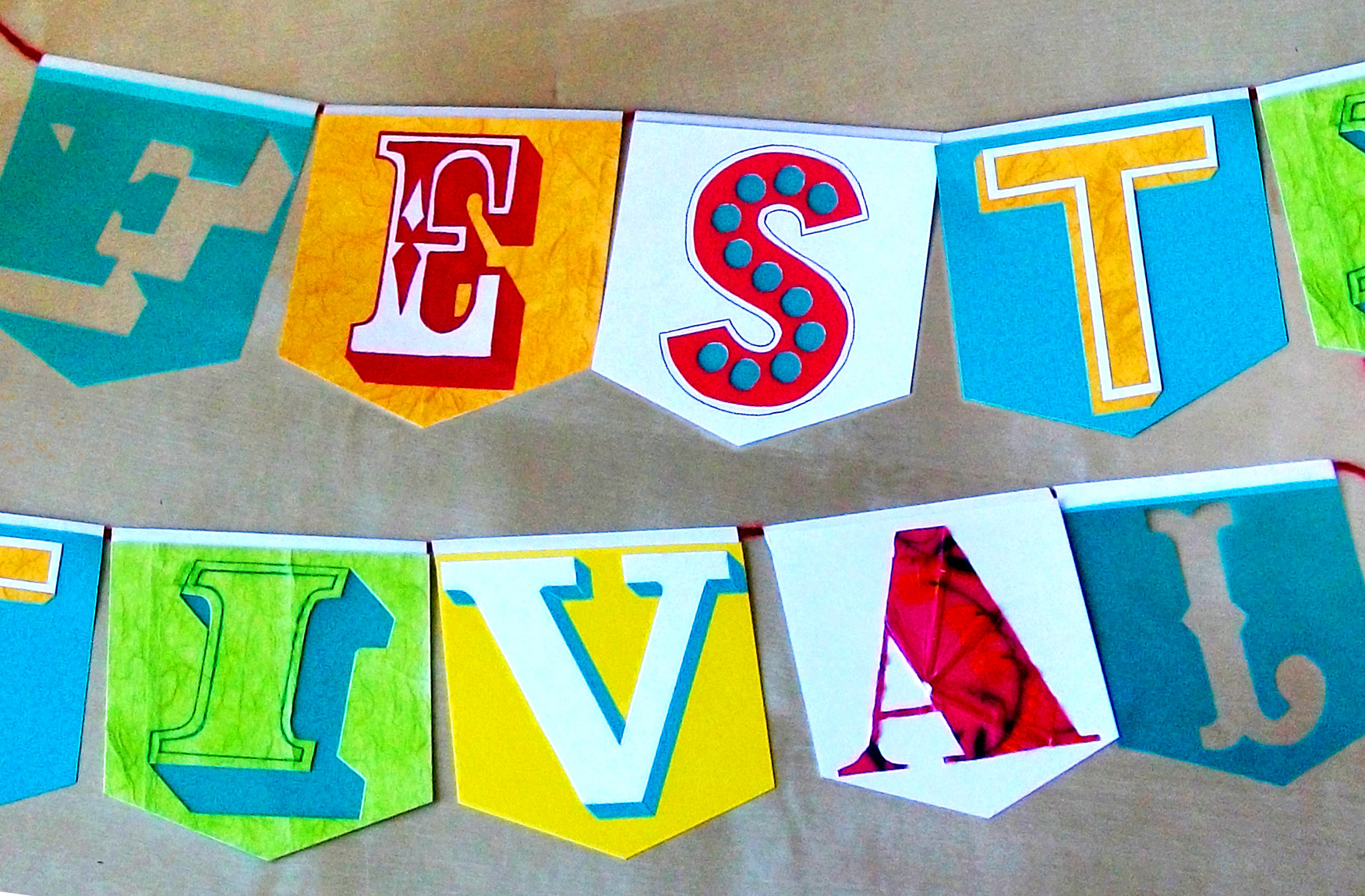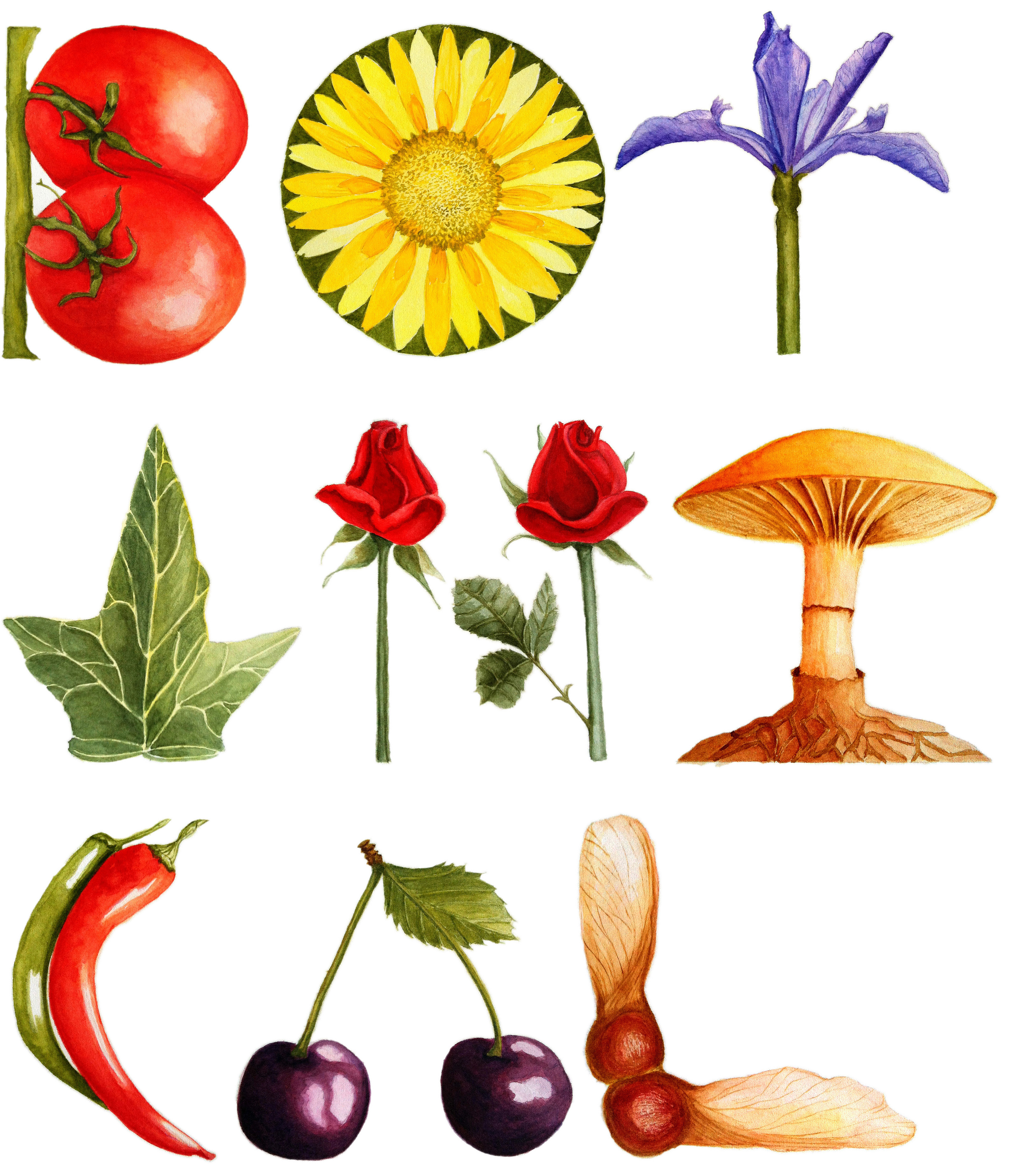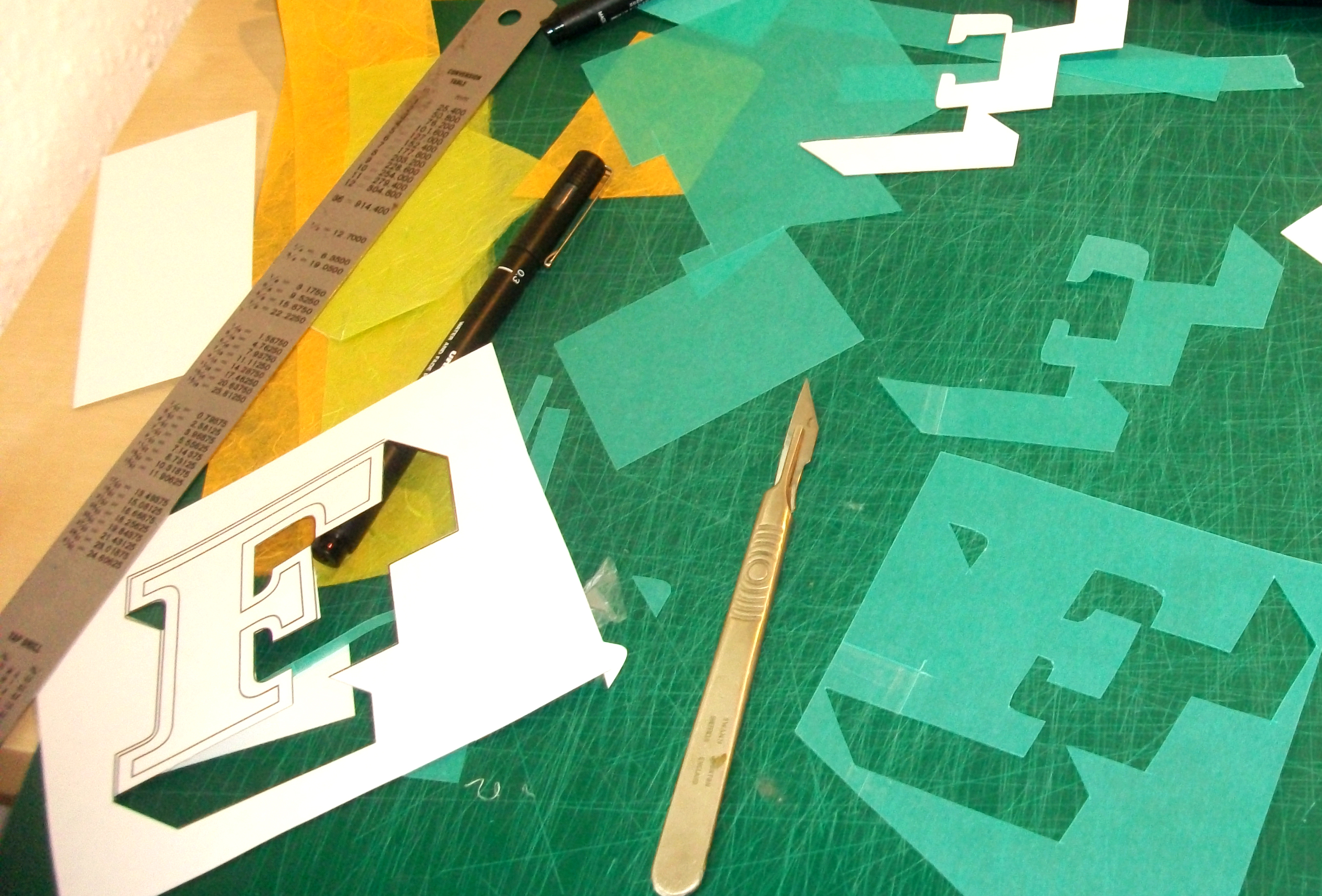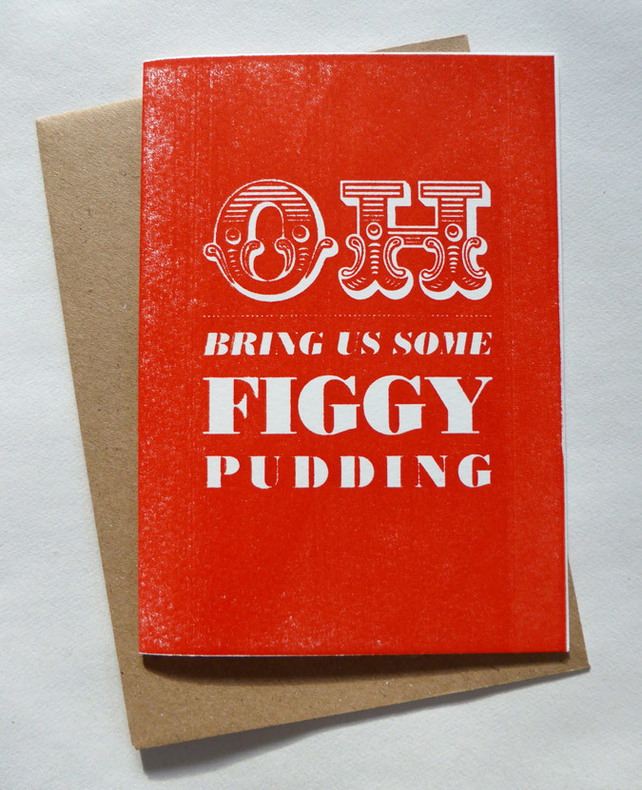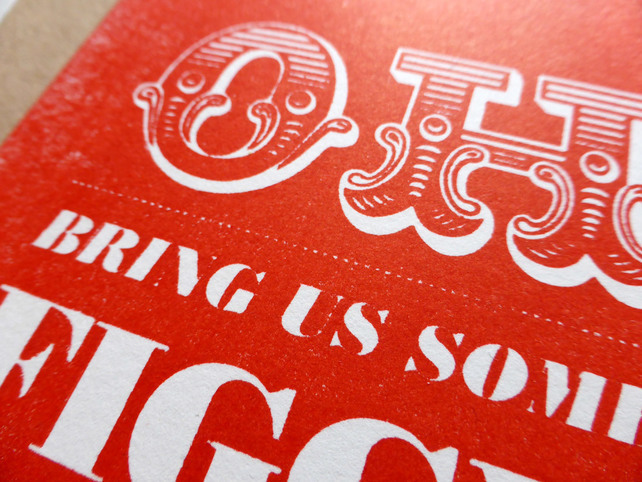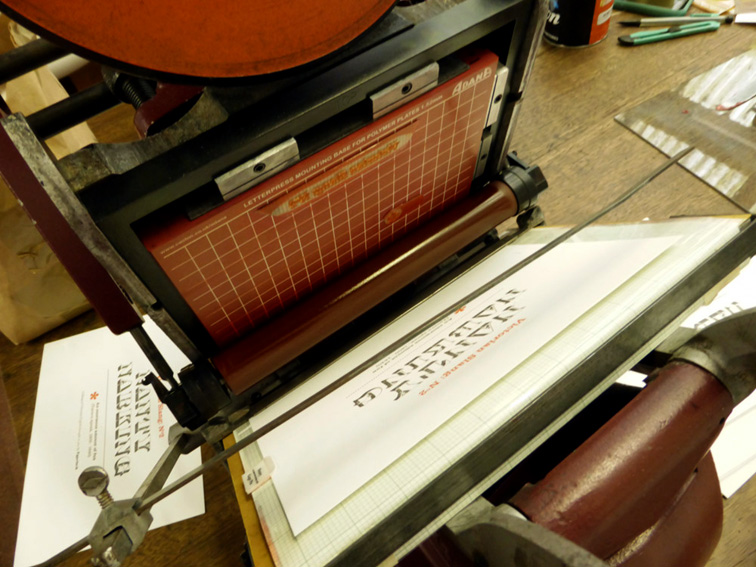
Letterpress by Typelark
We had letterpress prints by Typography Emporium guest Zoë Chan of Typelark in the Type Tasting studio at the weekend. Zoë prints on a vintage Adana letterpress and experiments with print techniques such as printing in reverse to create unusual textures.
‘Festival’ by Zoë Chan
‘Festival’ by Zoë Chan
“My main inspiration for ‘Festival’ is my love of vintage signage and type, especially that which typifies ‘Britishness’ and has been used in various street and building signs around London over the 19th-mid 20th Century. My passion is type in the environment / spatial type, and aside from the typefaces used being taken from signage I chose to display it as bunting; this both embodies the idea of festival and celebration and it can be hung in any environment, both inside and outside. My colours and materials used signify the excitement, eclecticism and cacophony of sights, sounds and emotions found around London.”
Two beautifully summery submissions for Type Tasting with the London Design Festival at the V&A. ‘Festival’ is by graphic designer Zoë Chan, the typographic bunting is created from felt and paper with lots of chunky display type. Dubai based Monica Brough’s ‘Botanical’ is inspired by her love of the natural world and all the gardens and parks in and around London such as Hampton Court and Kew Gardens.